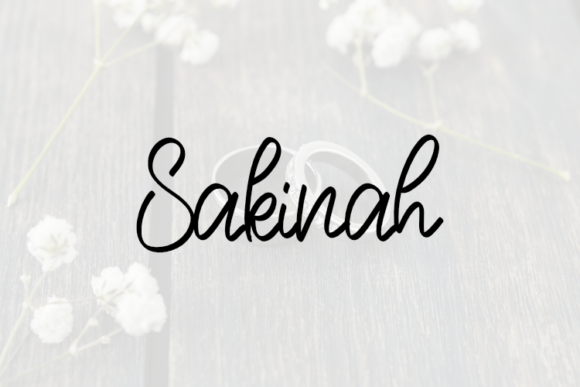
Sakinah Font: The Ultimate Creative Companion for Fashion Design
In the realm of fashion design, the right font can elevate your creations from ordinary to extraordinary. Introducing Sakinah, a dynamic and versatile font that has become the heartbeat of creativity in the fashion industry. Whether you’re working on clothing items, t-shirts, or a wide array of other products, Sakinah seamlessly blends in with your design aesthetic, offering an unparalleled level of elegance and sophistication.
Key Features of Sakinah Font
- Versatility: Sakinah’s design is versatile, making it suitable for a wide range of fashion products, from casual wear to high-end fashion items.
- Elegant Lines and Character: The font features elegant lines and a unique character that enhances any project with a touch of sophistication.
Applications of Sakinah Font in Fashion Design
Sakinah’s flexibility and aesthetic appeal make it an invaluable asset for various applications in fashion design. Here are some of the key areas where Sakinah truly shines:
- Clothing and Apparel: From t-shirts and hoodies to formal wear and accessories, Sakinah adds a touch of elegance to any clothing item.
- Product Design: For designers working on a range of products, including bags, shoes, and jewelry, Sakinah offers a consistent and stylish typographic solution.
- Branding and Marketing: The font’s unique character and elegance make it perfect for branding and marketing materials, helping brands stand out in the competitive fashion industry.
- Fashion Publications: Whether it’s for magazine titles, article headers, or captions, Sakinah brings a level of sophistication and style to fashion publications.
- Character Set: The font includes a comprehensive character set, supporting multiple languages and a variety of symbols.
- Style: Sakinah features elegant lines, a clean design, and a unique character that sets it apart from other fonts.
Sakinah is more than just a font; it’s a creative companion that brings a new level of elegance and sophistication to fashion design. Its versatility, compatibility, and unique character make it an indispensable tool for designers looking to make a statement. Whether you’re a professional in the fashion industry or a hobbyist working on personal projects, Sakinah is poised to become the heart of your creative process.